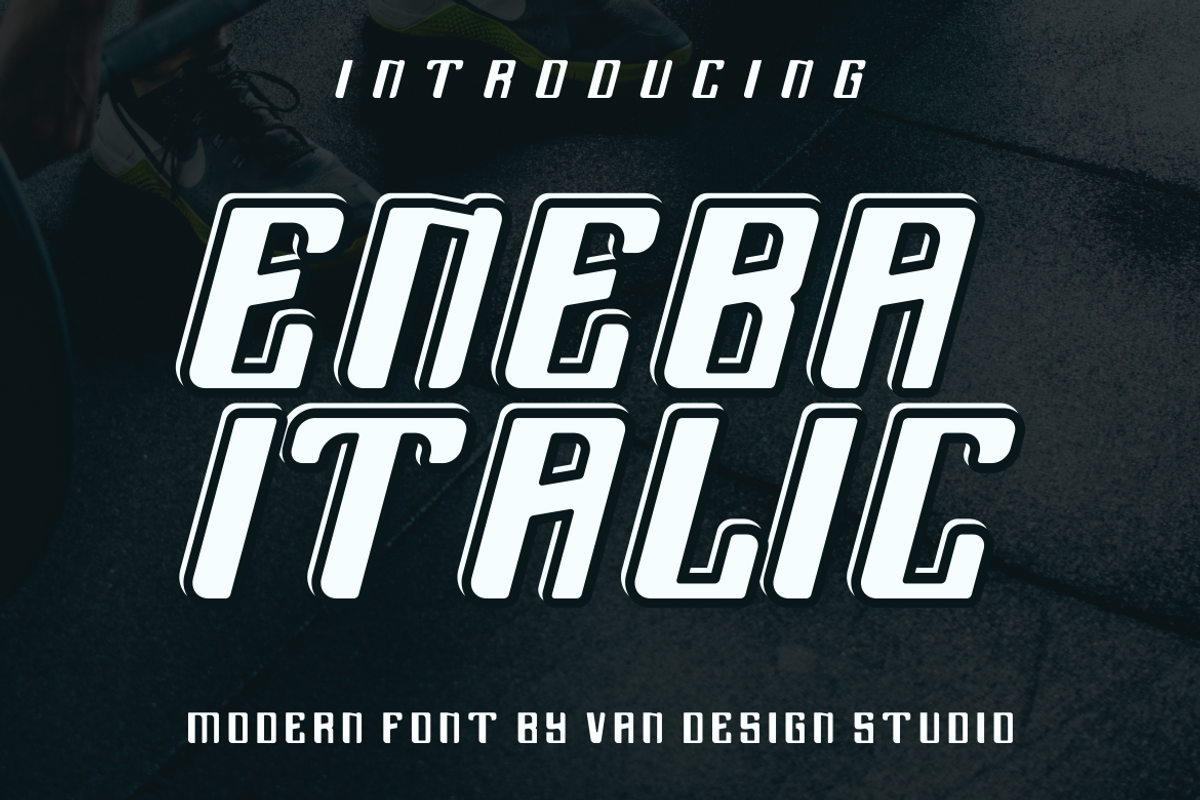
Infuse your designs with sleek motion and modern elegance using ENEBA Italic Font Free Download. This contemporary italic typeface features sharp angles, fluid curves, and a futuristic vibe—perfect for tech branding, esports graphics, digital products, and bold editorial layouts.
ENEBA Italic delivers a dynamic and stylish presence that grabs attention while maintaining readability. Its slanted posture gives a sense of movement and energy, making it a great choice for headlines, logos, and UI design elements. With support for uppercase, lowercase, numerals, and punctuation, it’s a versatile asset during your design exploration phase.